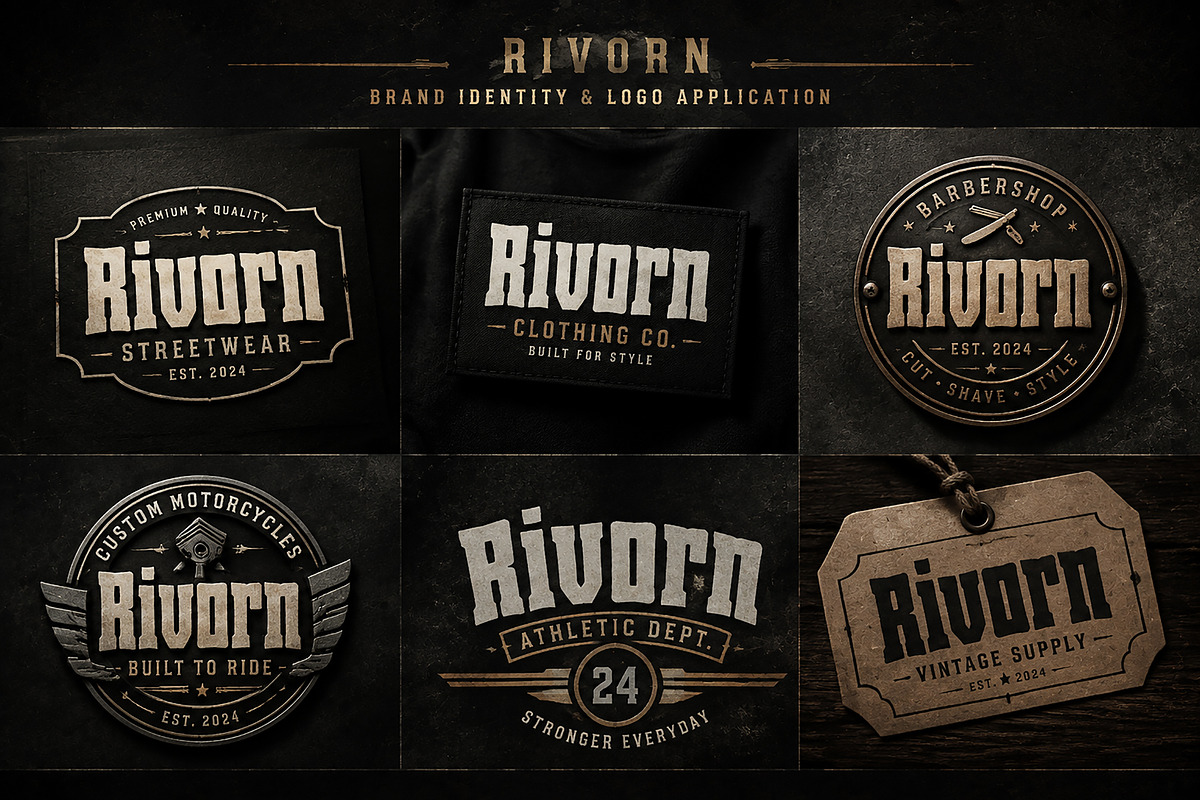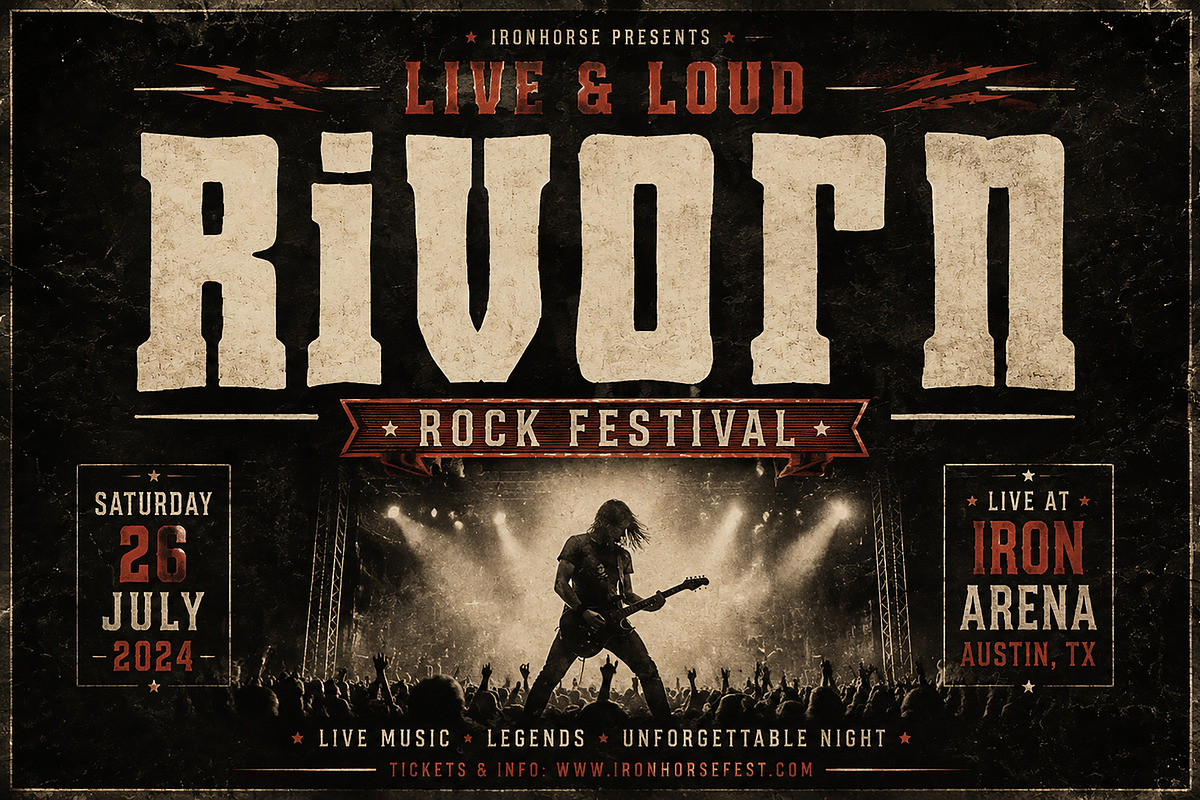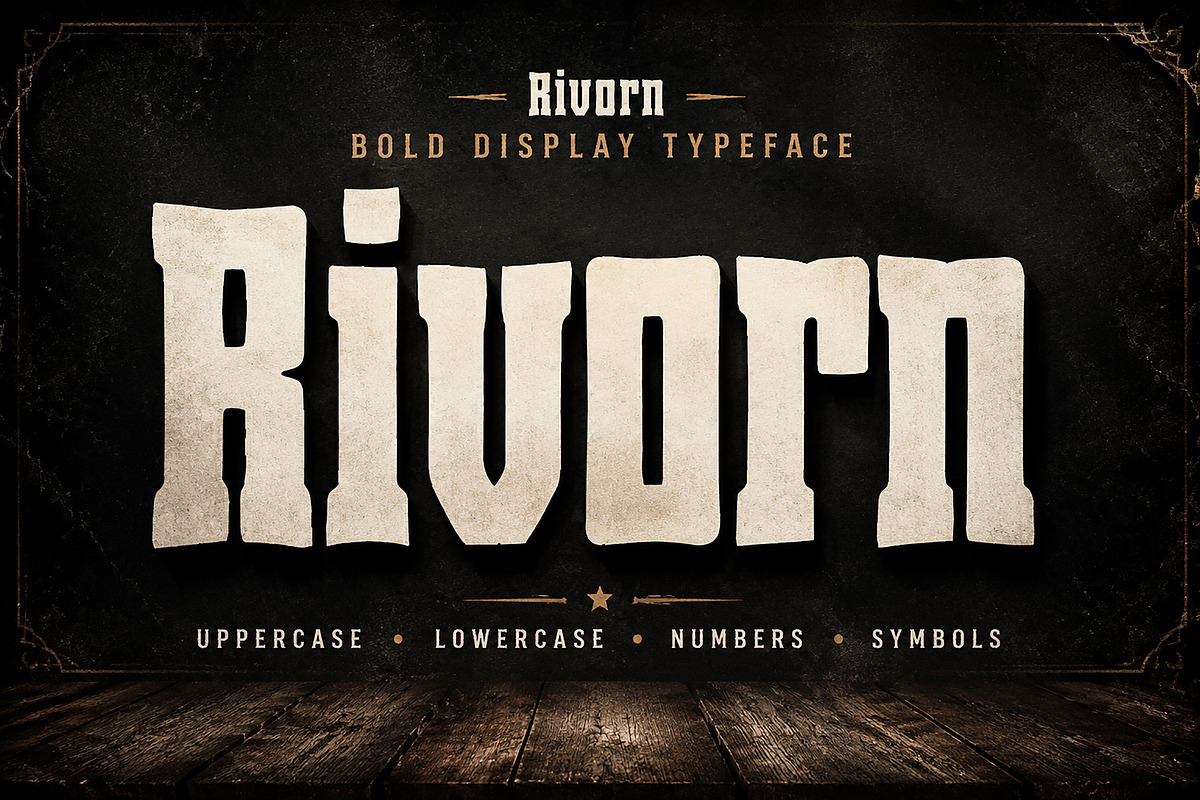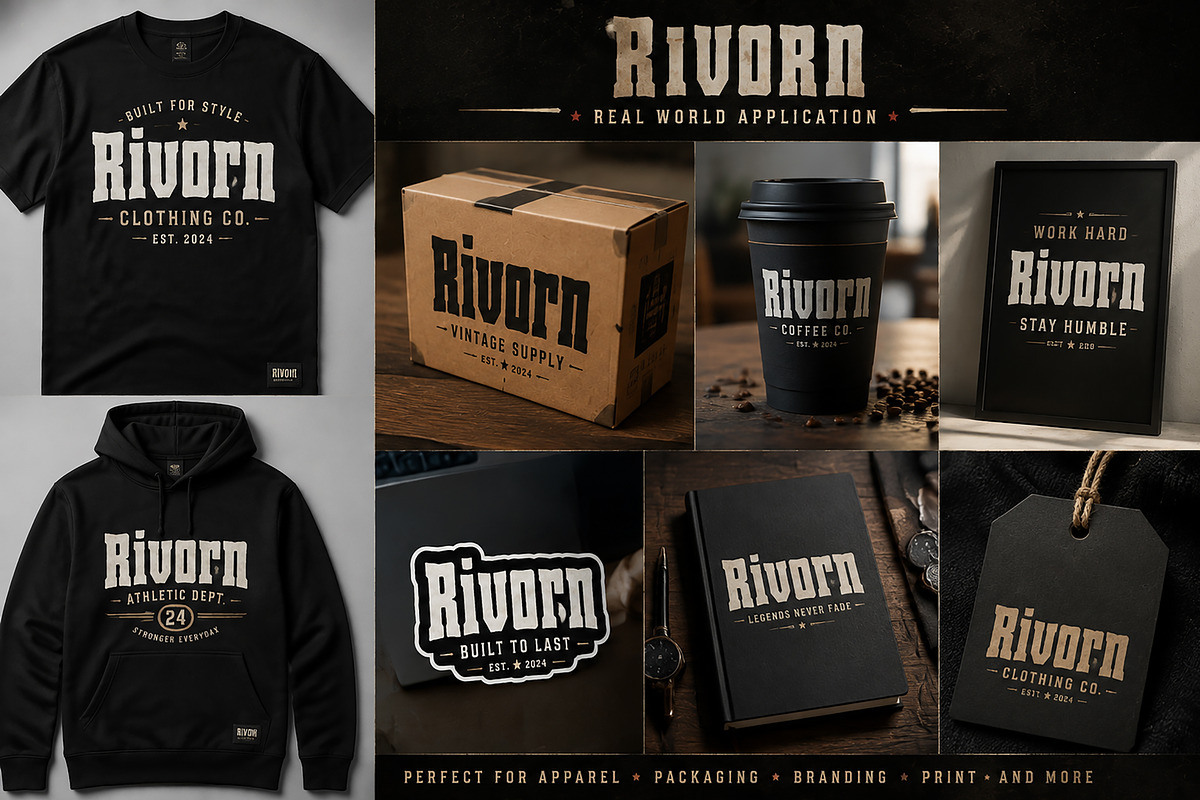
Rivorn
Rivorn – Bold Vintage Display Typeface
Rivorn is a powerful bold display typeface designed with a strong vintage character and modern versatility. Featuring a heavy condensed structure, rugged details, and an impactful visual style, Rivorn is perfect for projects that need a bold and memorable typographic presence.
This typeface works beautifully for logos, branding, posters, apparel designs, packaging, labels, sports graphics, editorial layouts, and creative advertising projects. Its strong personality makes it an excellent choice for streetwear brands, vintage-inspired designs, and premium visual identities.
Rivorn is designed to bring a confident, classic, and powerful look to your creative projects while maintaining excellent readability and visual impact.
Bold vintage display style
Strong condensed letterform design
Perfect for headlines and large typography
Suitable for branding and logo creation
Ideal for posters, apparel, packaging, and merchandise
Includes uppercase, lowercase, numbers, punctuation, and symbols